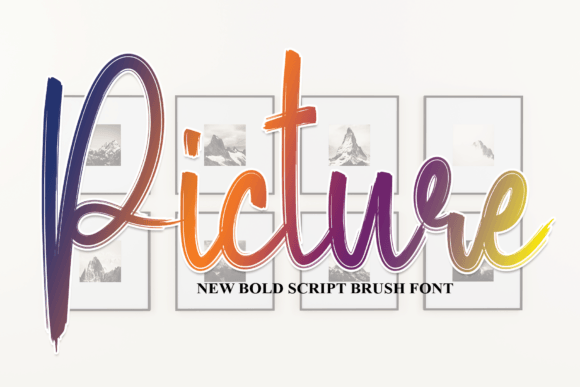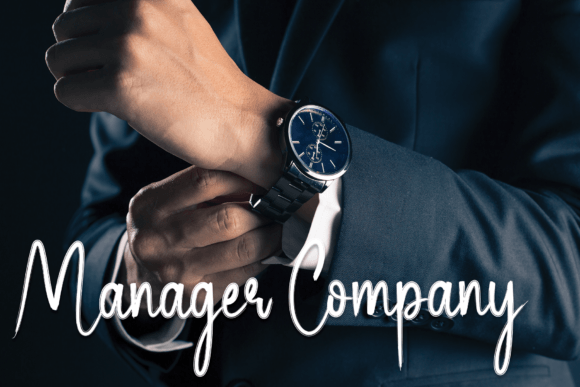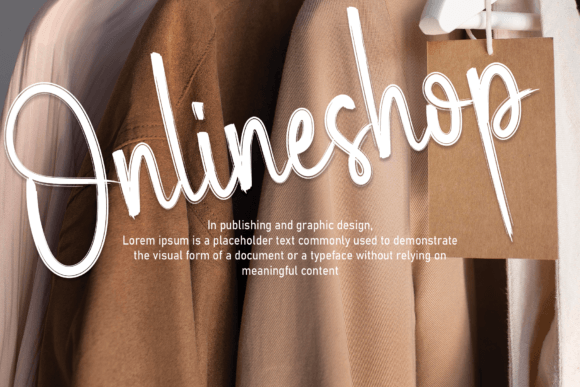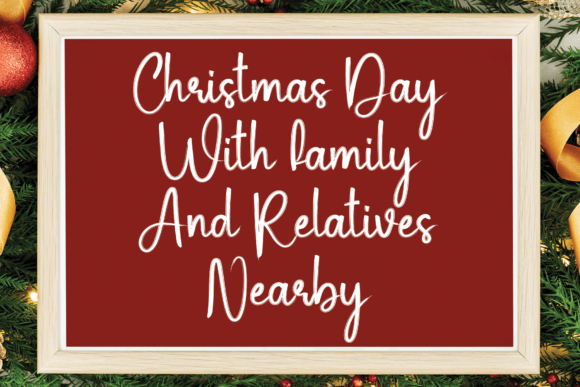
About Picture Font
Picture font is a beautiful handwritten typeface that adds charm and personality to any design project. When you download Picture font, you unlock a versatile and elegant script that suits a wide variety of creative uses. Its latest style letters feature a smooth, flowing look that captures the warmth and authenticity of natural handwriting.
Ideal for Various Creative Projects
Picture font’s design makes it perfect for creating stunning wall displays and wedding invitations. Whether you’re crafting social media post logos or designing advertisements, Picture font adds a handwritten touch that enhances visual appeal. Download Picture font to elevate your product packaging, product designs, labels, and stationery with a sophisticated, personal feel.
Perfect for Branding and Photography
This font’s delicate style is also an excellent choice for photography watermarks and branding projects. It seamlessly integrates a handcrafted look that brings elegance and style to logos and marketing materials. Picturefont is versatile, allowing you to use it across many creative formats, ensuring your work stands out with a unique handwritten flair.
Why Download Picture Font?
By choosing to download Picturefont, you get a modern yet timeless handwritten script. Its graceful and characters help make your projects look polished and professional while a warm, personal touch. Picturefont is sure to become a favorite for anyone seeking to add and to their designs.